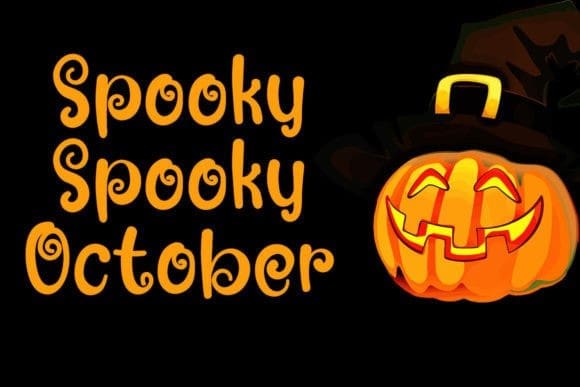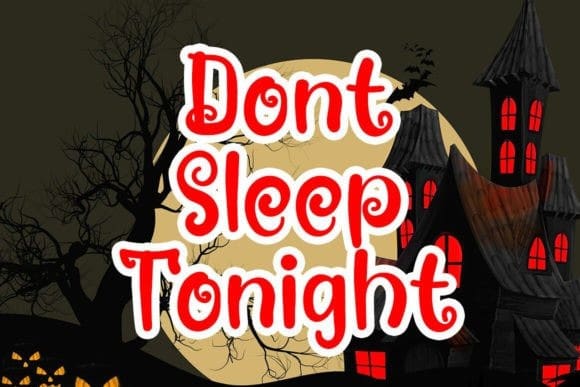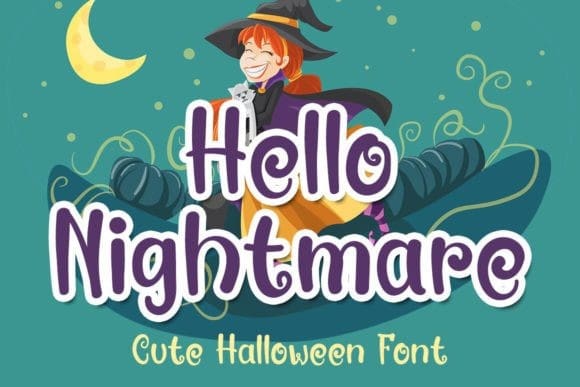
Hello Nightmare Font
Hello Nightmare Font is incredibly functional and versatile. With its multiple weights and styles, you can easily create a variety of design elements, from headlines and body text to logos and branding materials.